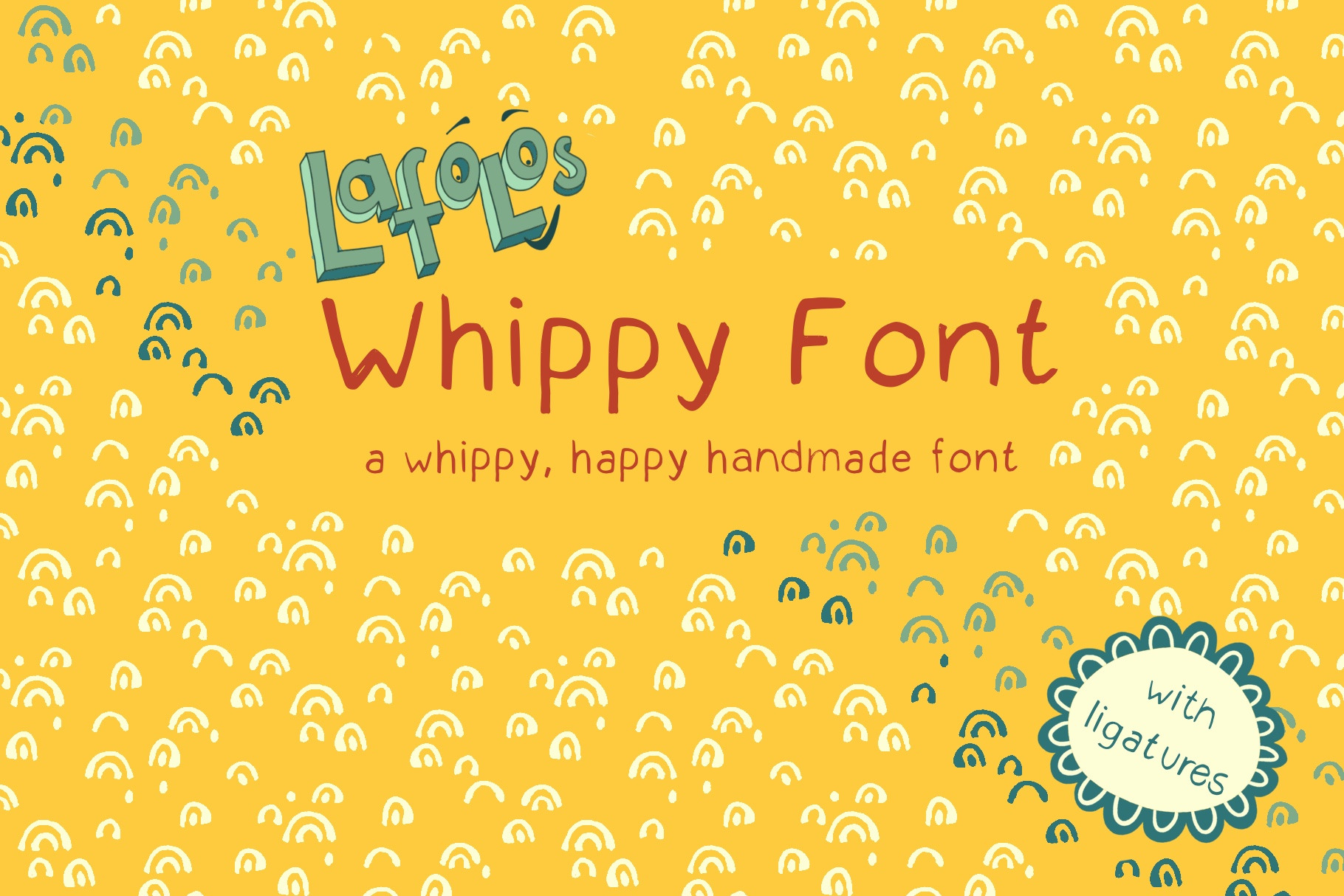
LAFOLOs Whippy Font
LAFOLOs Whippy Font - a quirky hand drawn font for headlines, package, branding and more. 100% handmade fun!
Use the font to create individual designs for headlines in chapter books, greeting cards, notebooks, stickers and so much more.
Language Support: Dutch, English, German, French, Spanish, Swiss German